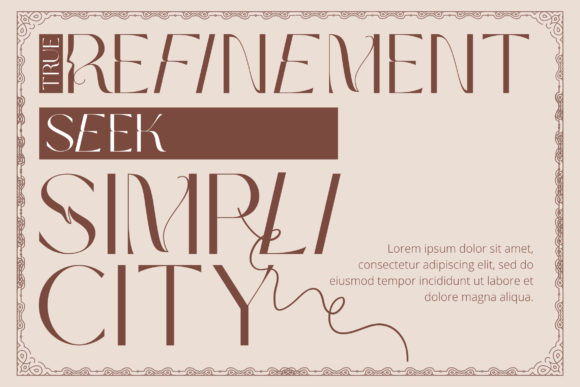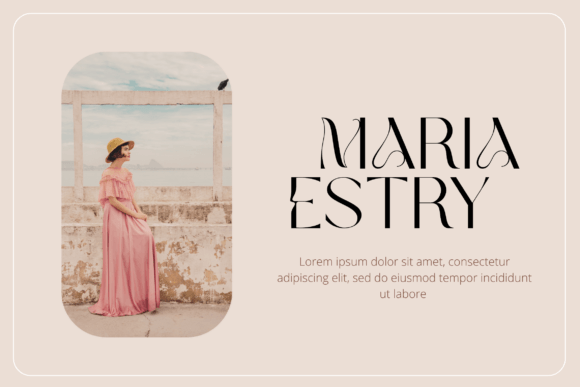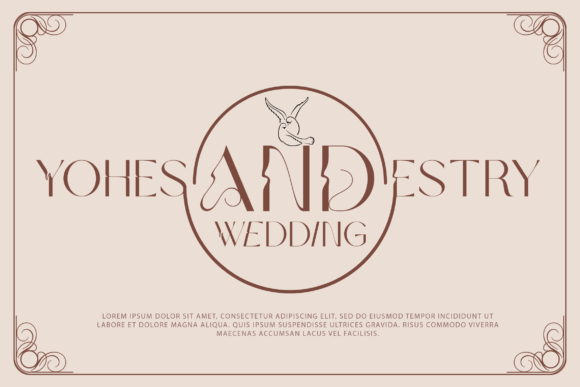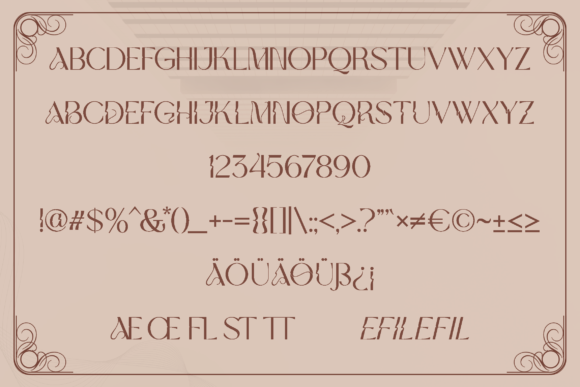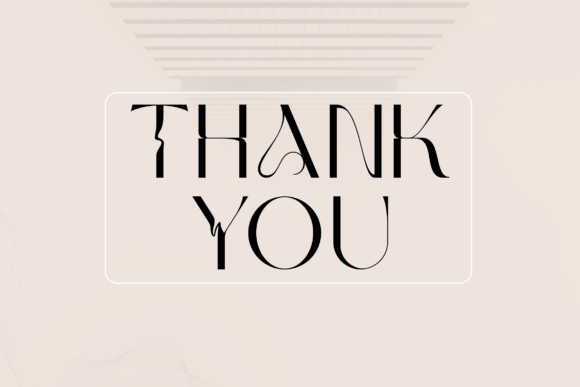
Auristela Font: The Modern Sans-Serif Font for Your Visual Needs
In the world of typography, a good font can make all the difference in the success of a design project. Whether you’re a designer, crafty DIY enthusiast, or small business owner, finding the right font can be a daunting task. That’s where Auristela Font comes in – a modern sans-serif font that’s authentic, versatile, and perfect for a wide range of visual needs.
What is Auristela Font?
Auristela Font is a modern sans-serif font designed to be clean, elegant, and highly legible. Its sleek lines and simple shapes make it an excellent choice for a variety of applications, from formal invitations and wedding materials to branding, business cards, and more.
Key Features of Auristela Font
- Modern sans-serif design: Auristela Font boasts a fresh and contemporary look that’s perfect for designs that require a clean and minimalist aesthetic.
- Authentic and unique: Unlike traditional fonts that can look generic or overused, Auristela Font offers a distinctive character that sets it apart from other sans-serif fonts.
- Highly legible: The font’s clear and simple design ensures that it’s easy to read, even at small sizes, making it perfect for body text or captions.
- Versatile: Auristela Font is suitable for a wide range of applications, including invitations, weddings, greeting cards, branding materials, business cards, quotes, posters, and more.
Why Choose Auristela Font?
With so many fonts available, why choose Auristela Font? Here are just a few reasons:
- Elevate your designs: Auristela Font can instantly elevate your designs, giving them a professional and polished look that’s sure to impress.
- Save time: With Auristela Font, you can quickly and easily create stunning designs without spending hours searching for the perfect font.
- Stand out from the crowd: Auristela Font’s unique design ensures that your designs will stand out from the crowd, grabbing attention and making a lasting impression.
Using Auristela Font in Your Designs
Auristela Font is incredibly versatile and can be used in a variety of design applications. Here are some ideas to get you started:
- Invitations and weddings: Use Auristela Font to create beautiful and elegant invitations, wedding programs, and other stationery.
- Branding and business cards: Auristela Font is perfect for creating professional business cards, brochures, and other branding materials.
- Greeting cards and posters: Add a personal touch to your greeting cards and posters with Auristela Font’s clean and modern design.
- Quotes and typography: Use Auristela Font to create stunning typographic quotes, posters, and social media graphics.
Tips for Getting the Most Out of Auristela Font
To get the most out of Auristela Font, here are some tips:
- Experiment with font sizes: Auristela Font looks great at a range of font sizes, from small captions to large headings.
- Play with color: Auristela Font pairs well with a variety of colors, so don’t be afraid to experiment and find the perfect combination for your design.
- Mix and match with other fonts: Auristela Font can be paired with other fonts to create a unique and interesting design.
Auristela Font is a modern sans-serif font that’s perfect for designers, crafters, and small business owners looking for a clean, elegant, and highly legible font. With its versatile design and wide range of applications, Auristela Font is sure to become a go-to font in your design arsenal. So why wait? Download Auristela Font today and start creating stunning designs that will leave a lasting impression!